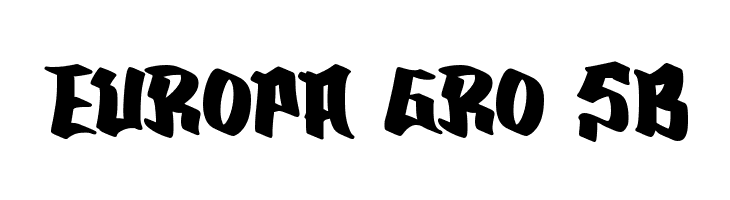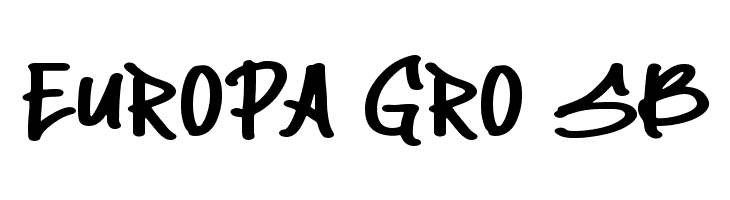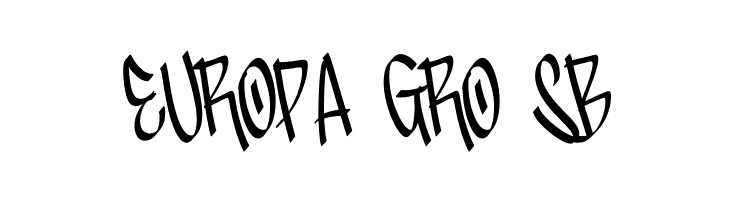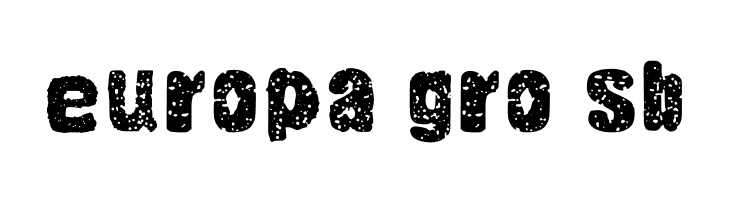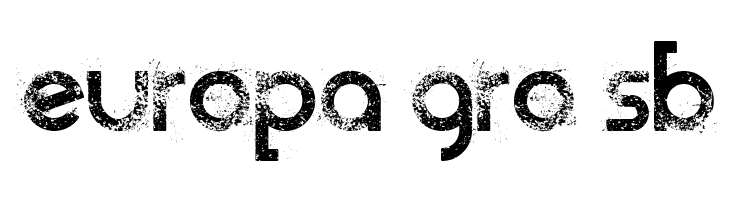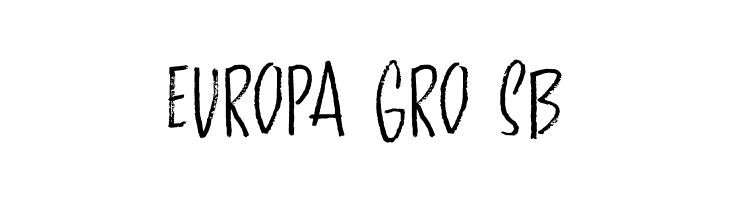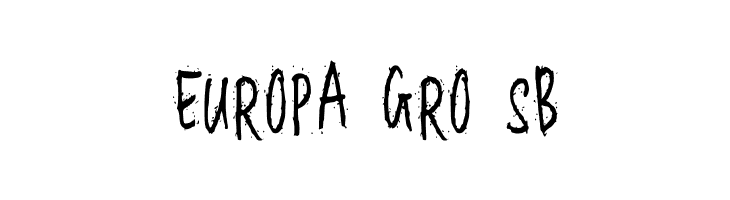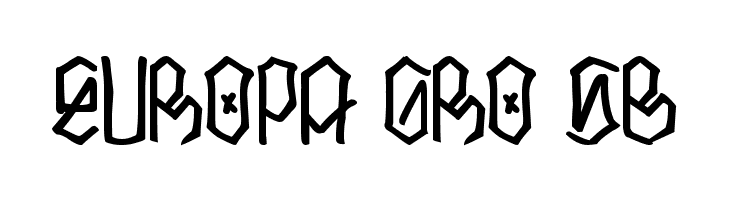
A bold, graffiti-style font with sharp angles and thick strokes.
A bold, graffiti-inspired font with a dynamic, brush-like texture.
A bold, graffiti-inspired font with sharp, angular lines and a dynamic style.
A bold, textured font with a rugged, industrial look.
A bold, distressed sans-serif font with a grunge texture.
A rugged, hand-drawn font with a gritty, urban aesthetic.
A bold, distressed font with a textured, urban style.
A bold, urban-inspired font with dynamic curves and a modern aesthetic.
A rugged, distressed hand-drawn font with an urban, gritty feel.
A bold, angular font with a graffiti-inspired, edgy design.